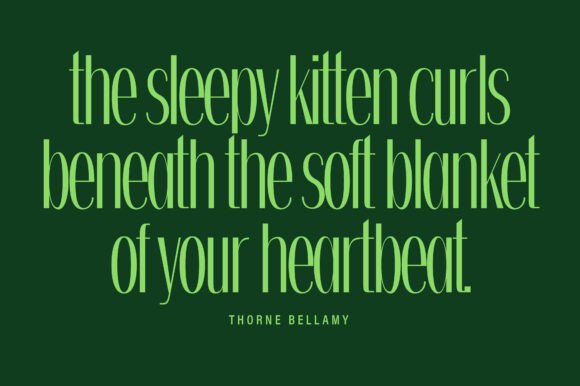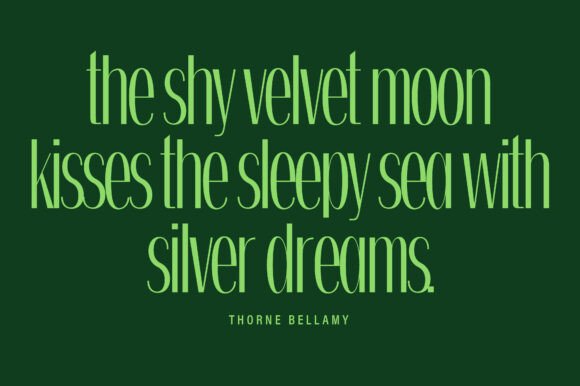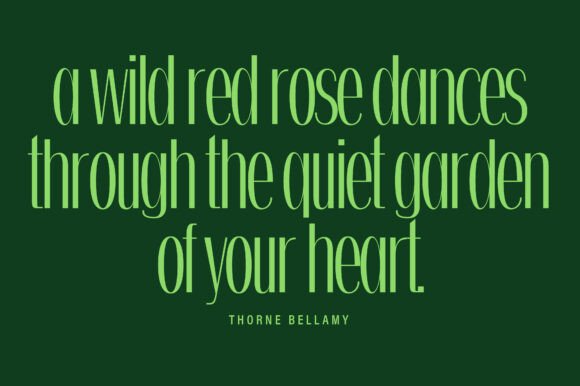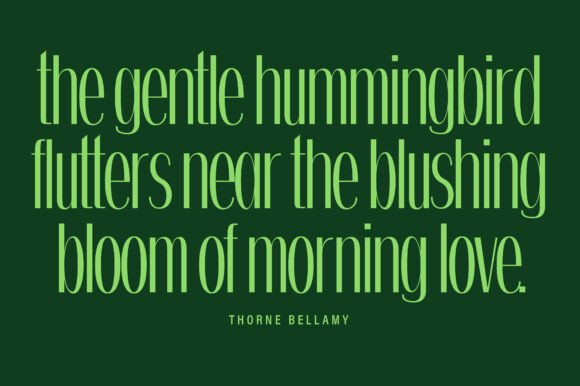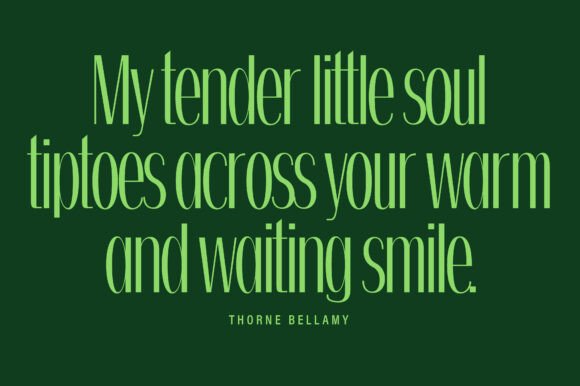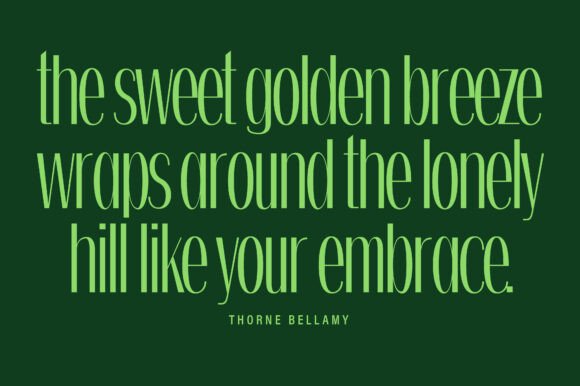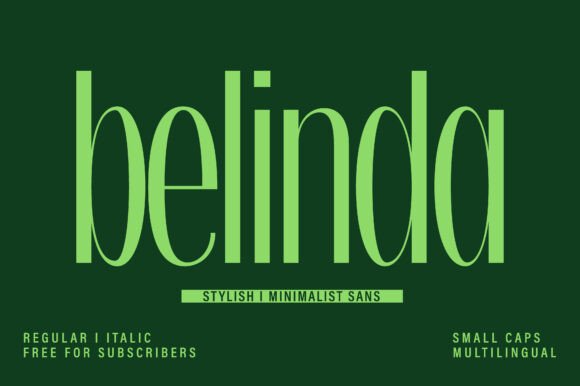
Introducing Belinda Font: Elevate Your Design Game with Sleek Minimalism
In the world of typography, a well-crafted font can make all the difference in elevating your design from ordinary to extraordinary. Meet Belinda Font, a sleek and minimalist sans-serif typeface that embodies the perfect blend of elegance and clarity. Designed for the modern designer, Belinda Font is ideal for a wide range of applications, including branding, editorial layouts, packaging, and web design.
The Essence of Belinda Font
Belinda Font boasts a tall, narrow silhouette that commands attention while exuding effortless style. Its refined letterforms are crafted to deliver sophistication and precision, making it the perfect choice for designers who value simplicity and timeless aesthetics. Whether you’re creating luxury logos, fashion lookbooks, or clean UI interfaces, Belinda Font is your go-to choice for minimalist branding and high-end visual storytelling.
Key Features of Belinda Font
- Sleek and Minimalist Design: Belinda Font features a clean and minimalist design that ensures your message takes center stage.
- High-End Aesthetics: With its elegant and refined letterforms, Belinda Font is perfect for luxury branding and high-end visual storytelling.
- Versatile: Suitable for a wide range of applications, including branding, editorial layouts, packaging, and modern web design.
- Easy to Read: The font’s clear and precise letterforms ensure excellent readability, even at small sizes.
Why Choose Belinda Font?
In today’s fast-paced design landscape, it’s essential to have a font that can keep up with your creative demands. Belinda Font offers a unique combination of style, versatility, and precision, making it an excellent addition to your design toolkit. Here are just a few reasons why Belinda Font stands out:
Perfect for Minimalist Branding
Belinda Font is designed for those who appreciate the beauty of simplicity. Its clean lines and elegant letterforms make it an excellent choice for minimalist branding, allowing your message to shine through without unnecessary embellishments.
Ideal for High-End Visual Storytelling
When it comes to high-end visual storytelling, Belinda Font delivers. Its sophisticated and refined aesthetic ensures that your message is conveyed with style and precision, perfect for luxury brands, fashion lookbooks, and high-end editorial content.
Enhance Your Design Workflow
Belinda Font is designed to streamline your design workflow. Its clear and precise letterforms ensure that your designs are easy to read and understand, saving you time and effort in the long run.
In conclusion, Belinda Font is a game-changer for designers who value simplicity, elegance, and precision. Its sleek and minimalist design makes it perfect for a wide range of applications, from branding and editorial layouts to packaging and web design. Download Belinda Font now and transform your typography into a statement of style.
- Font Type: Sans-Serif
- Font Style: Minimalist